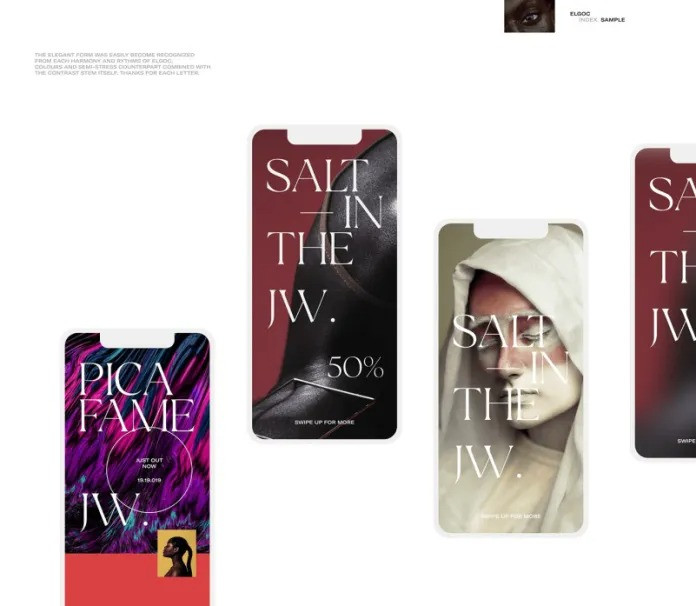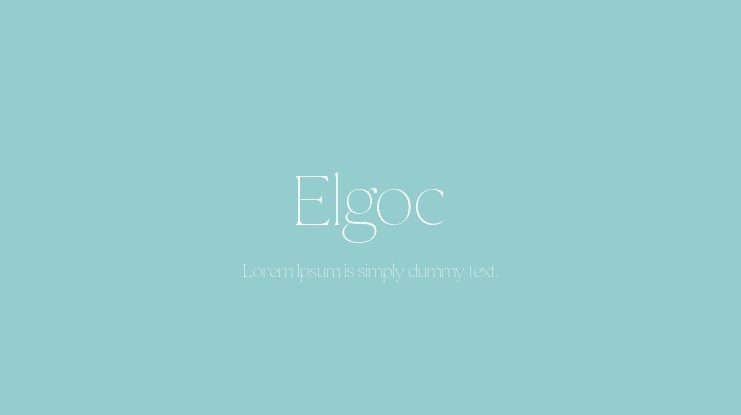
Elgoc Font
This one took a lot of work, but hopefully, you will like it! Elgoc Serif Font is a serif display font with a beautiful form, strong contrast, and elegant look. It will grant any editorial piece a fresh air of sophistication.